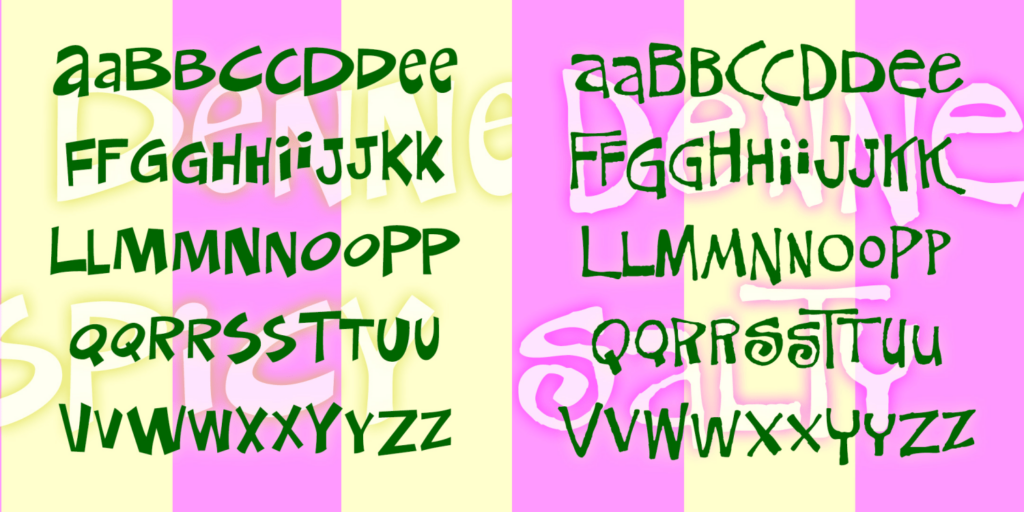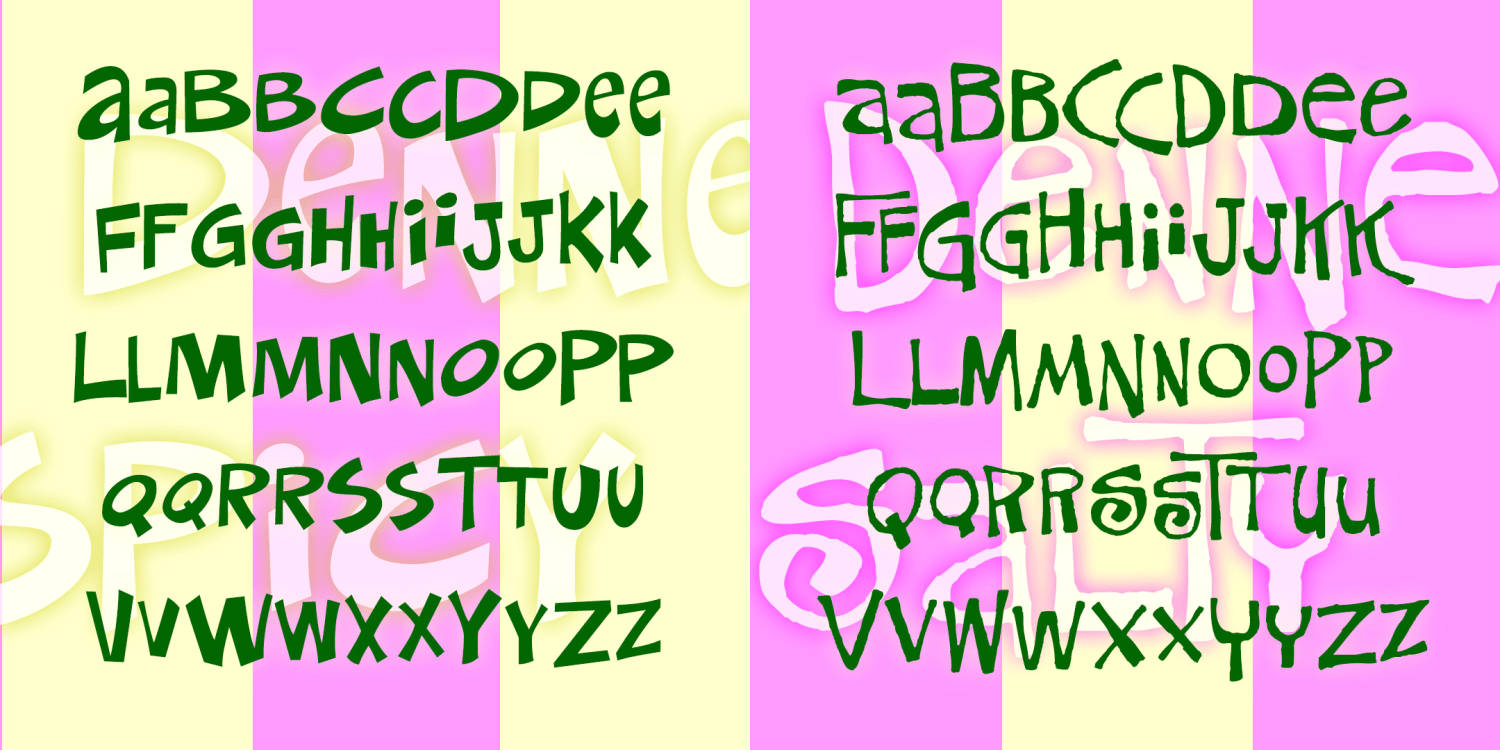
Denney Family
About Denney Family
DENNEY SALTY and DENNEY SPICY are playful, comical, and quirky fonts, inspired by the work of Alan Denney for the Barker Greeting Card Company of Cincinnati, OH, circa 1969?74. DENNEY SALTY (formerly Denney One) has the bumpy edges and whimsical letterforms…